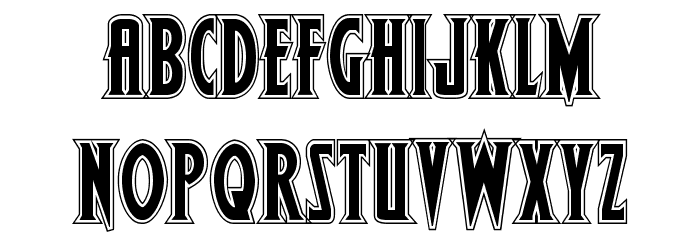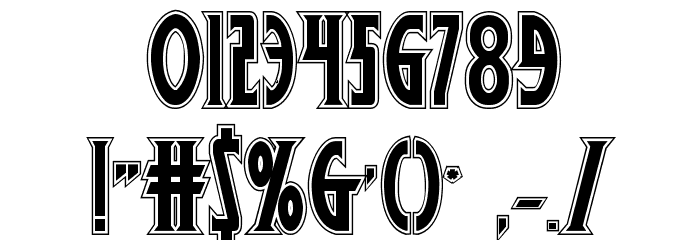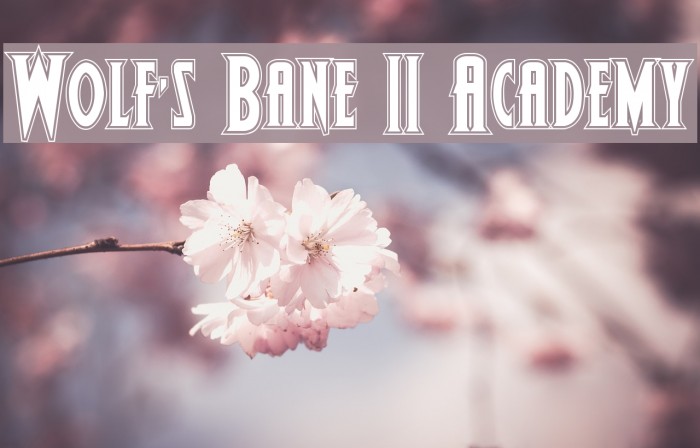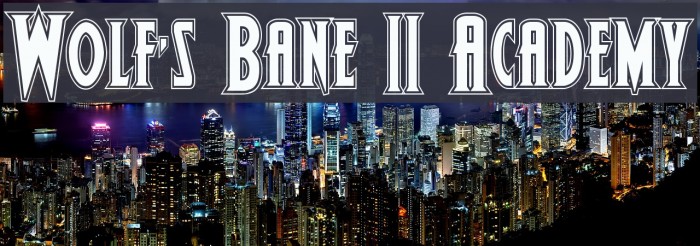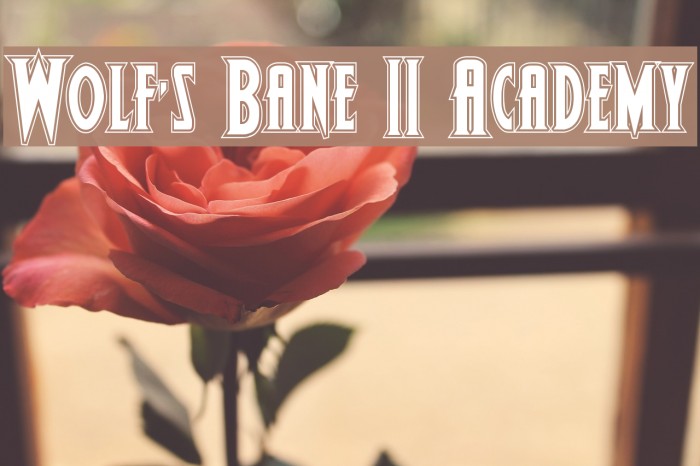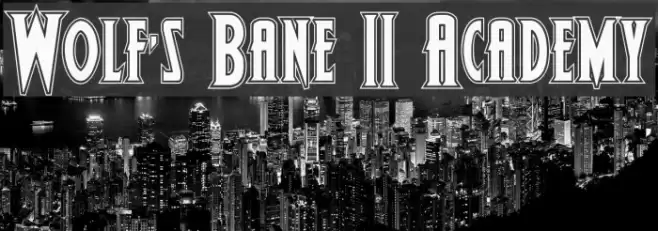
Wolf's Bane II Academy Font
This font features a bold and impactful design with a strong presence, characterized by its thick, angular strokes and sharp serifs. The letters are outlined, adding a three-dimensional effect that enhances its dramatic appearance. The uppercase and lowercase letters maintain a consistent style, with the numerals and special characters following suit. The font's unique style is reminiscent of vintage or retro themes, making it suitable for projects that require a bold statement. Its distinct appearance is ideal for capturing attention and conveying a sense of strength and authority.
A bold, outlined font with angular strokes and sharp serifs, perfect for dramatic and vintage themes.
- Proposed Projects: Ideal for posters, logos, headlines, and branding projects that require a strong, eye-catching design.
- Overall Style: Vintage